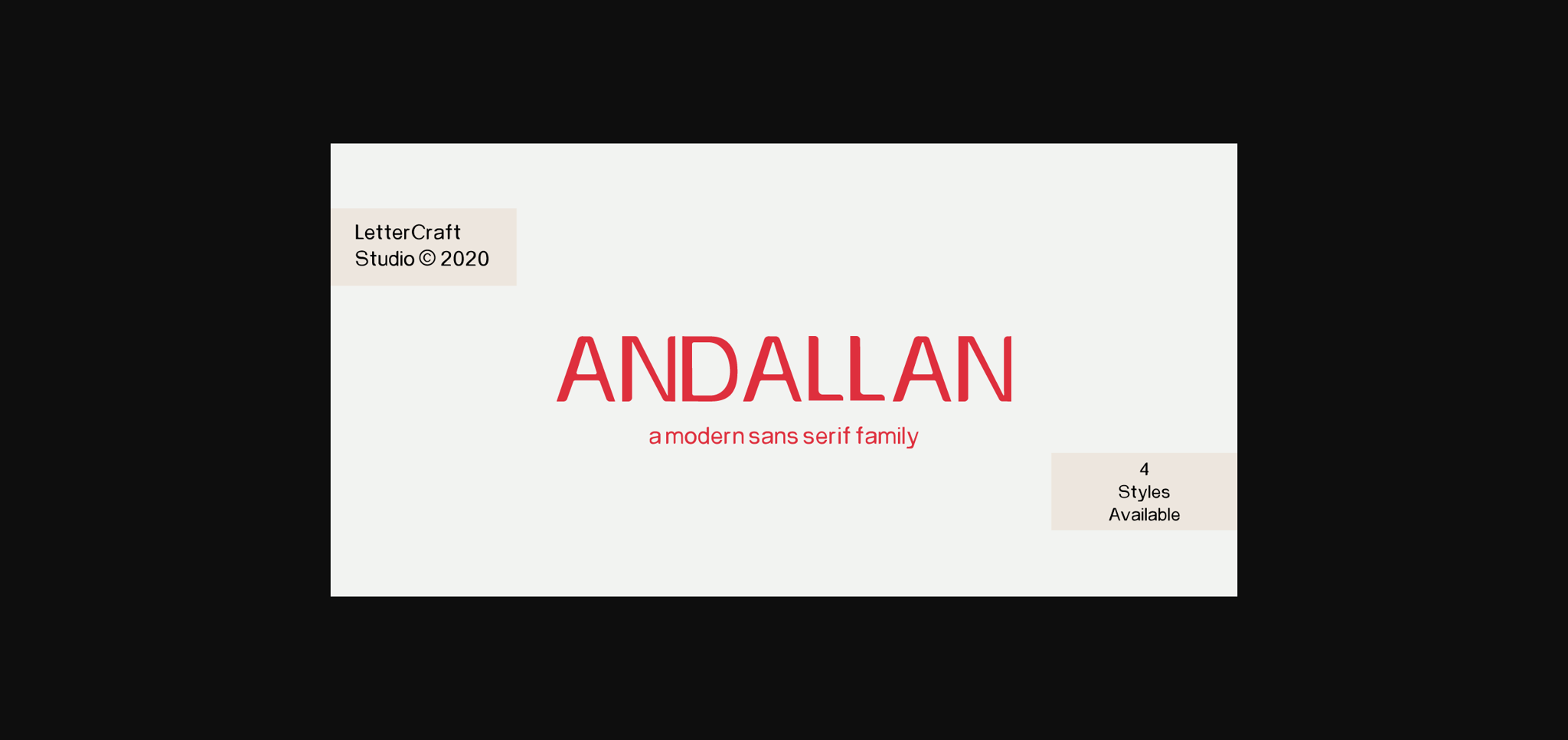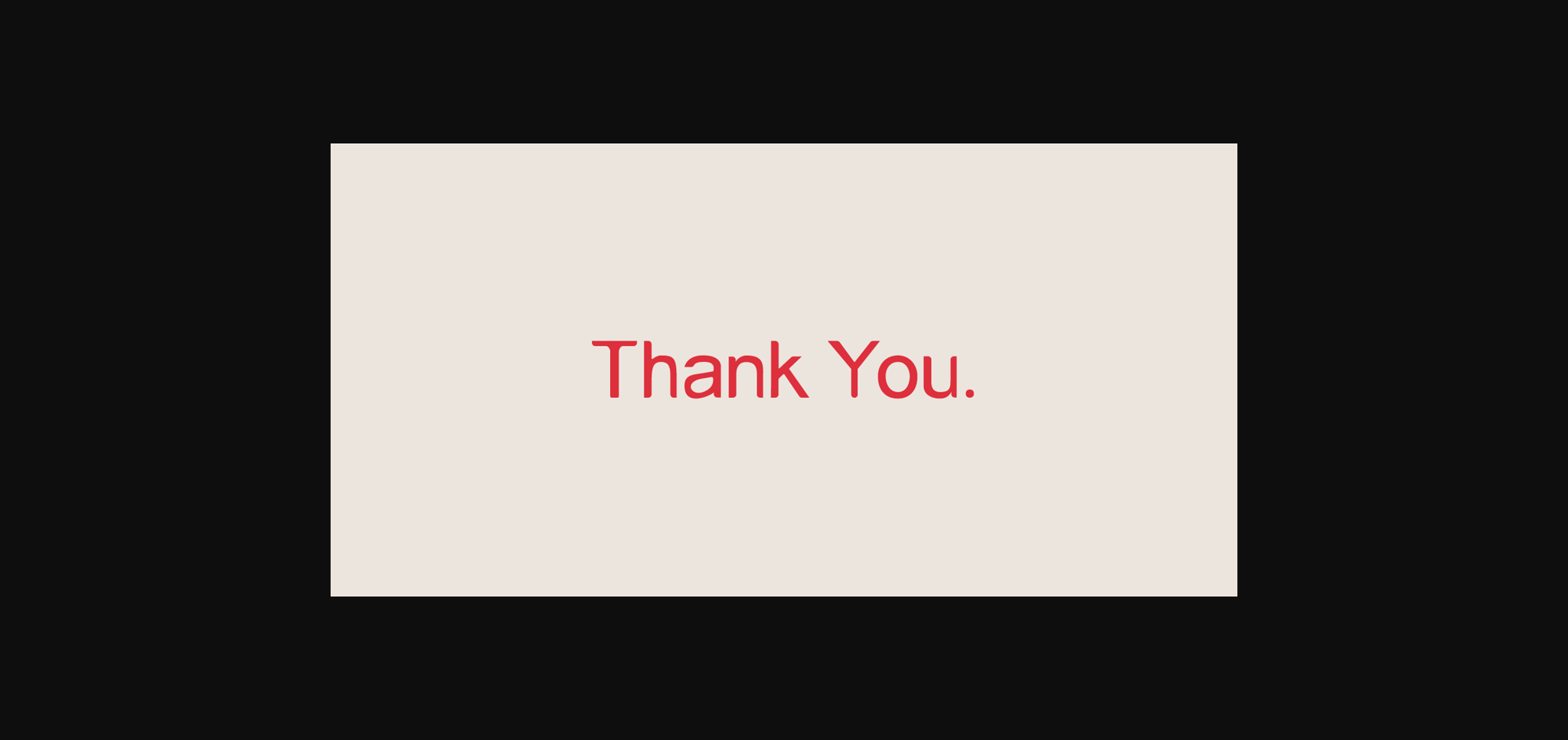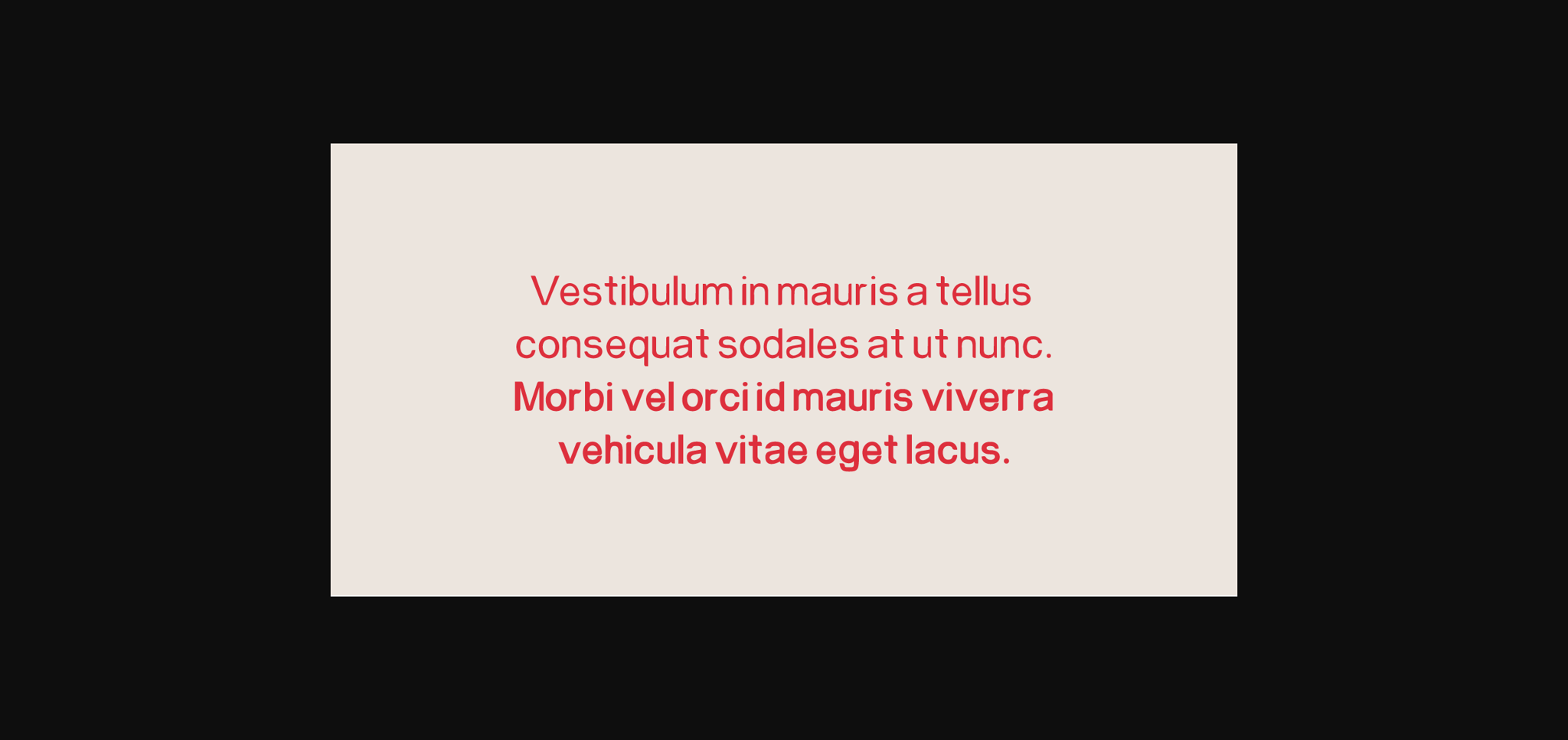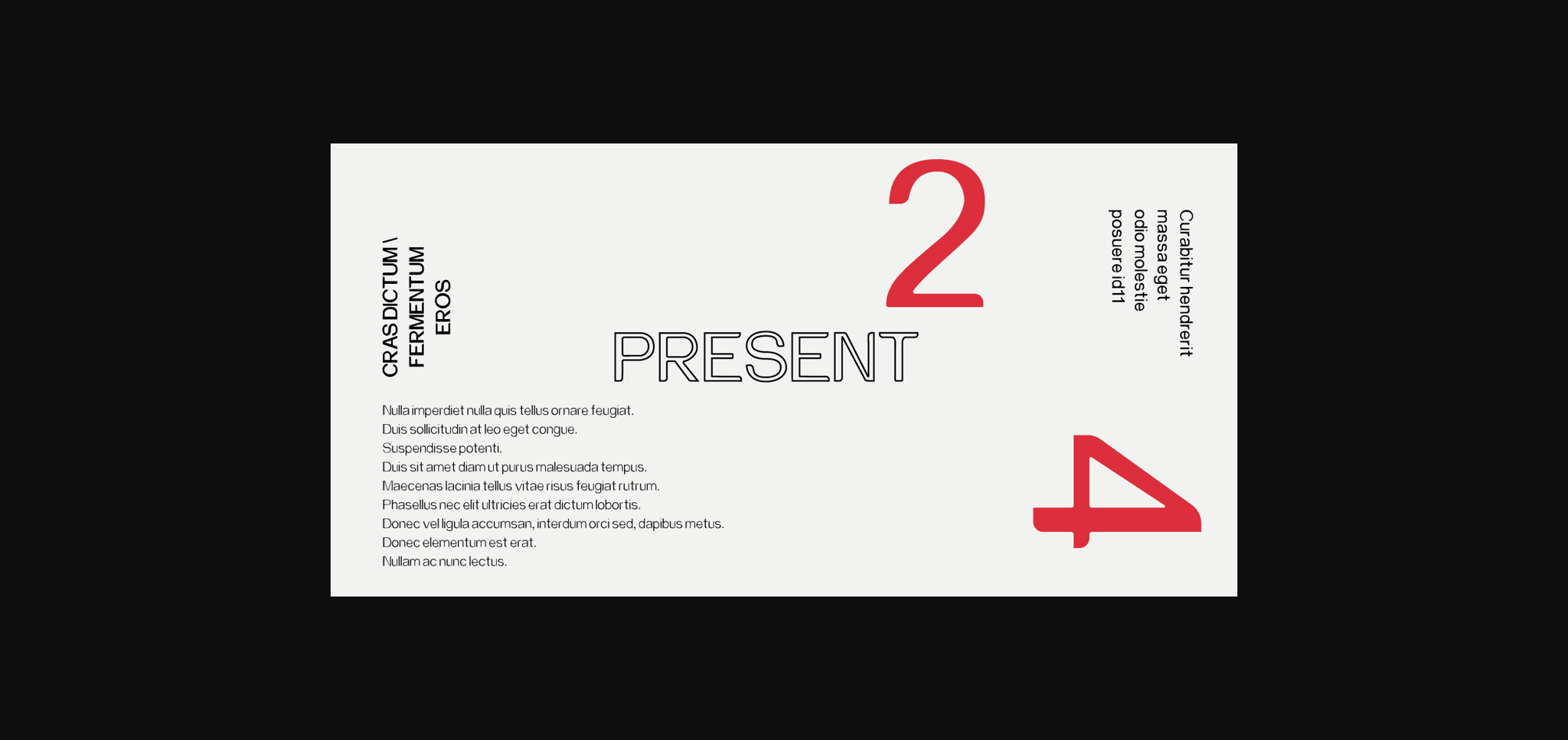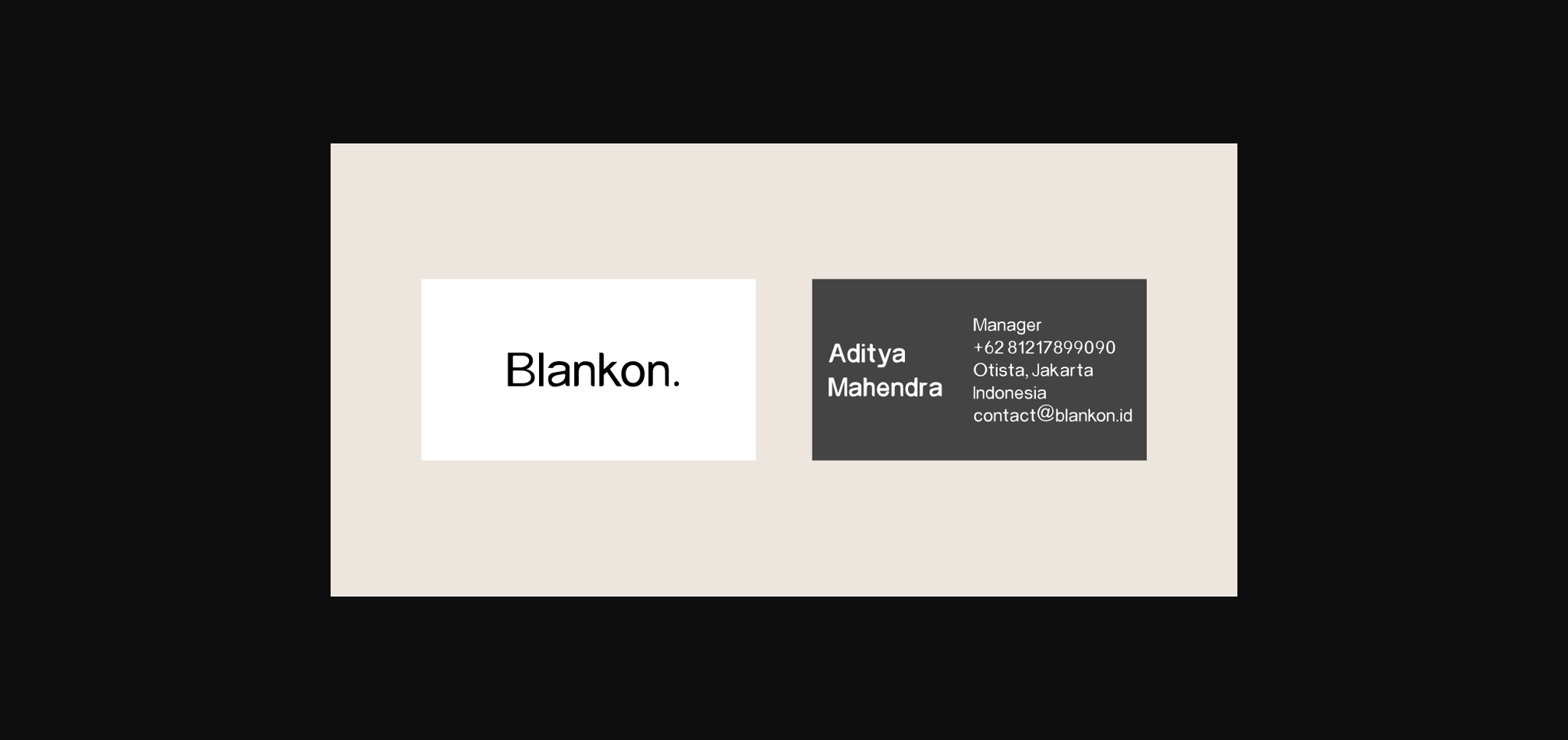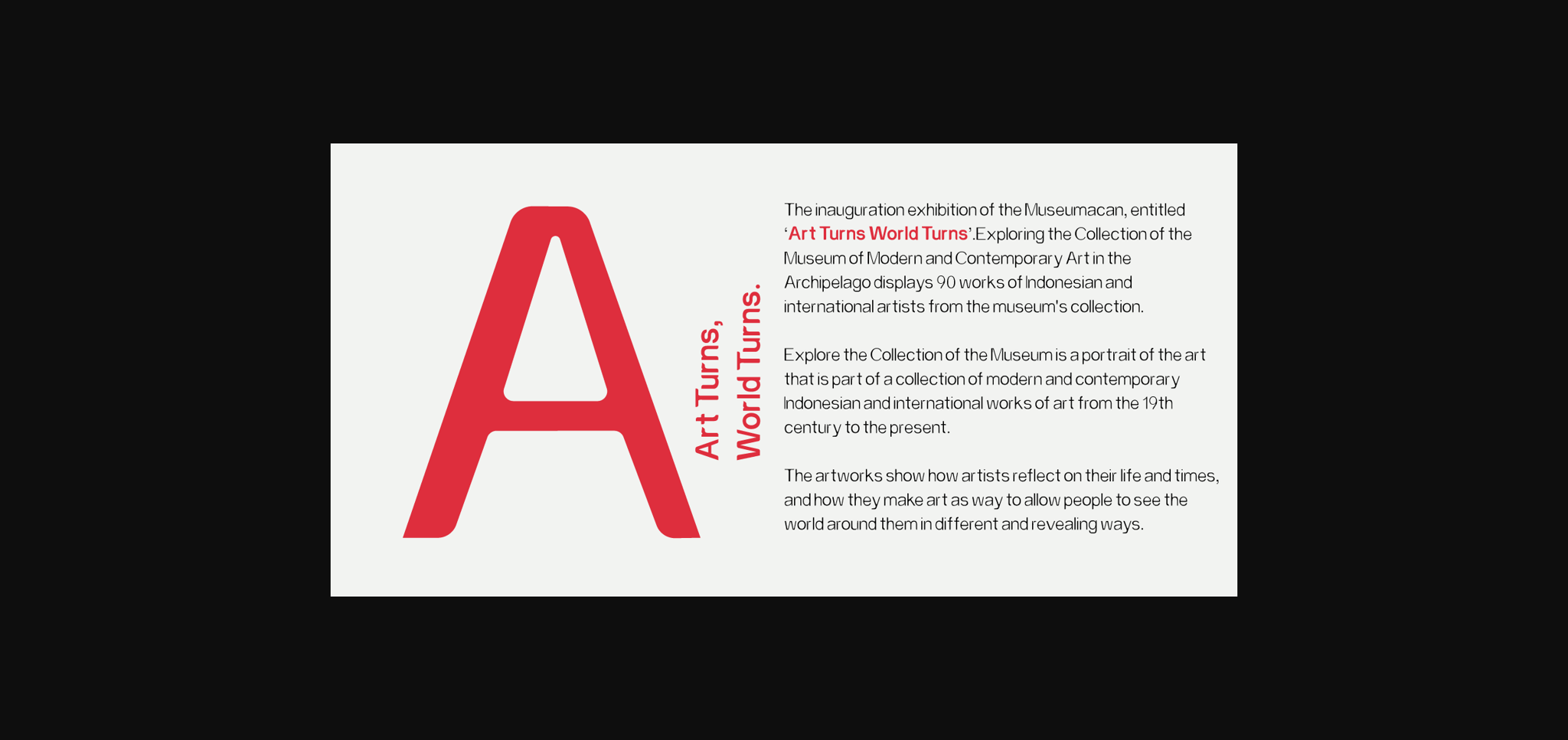
About Andallan Font
Andallan sans serif font is the second font from LetterCraft Studio after the free ‘Tulehu’ font.
Andallan font has 4 families, consisting of Light, Regular, Bold and Highlight.
Andallan has thick and thin characters. The reliable fonts are perfect for whatever your project is, whether personal or business.